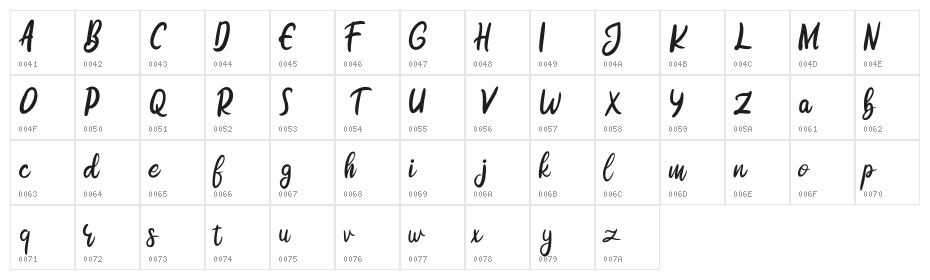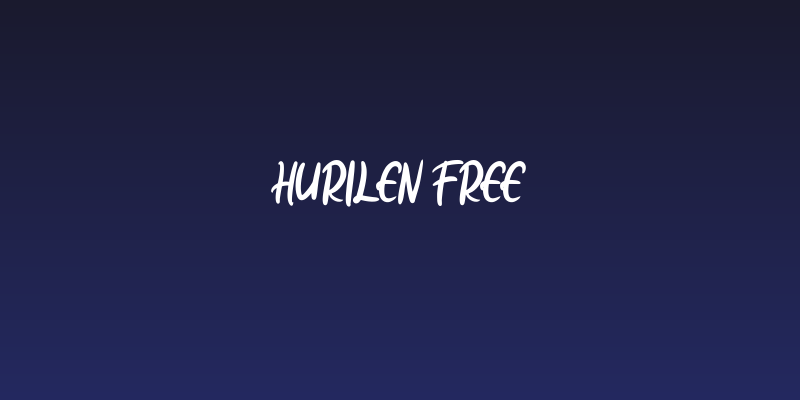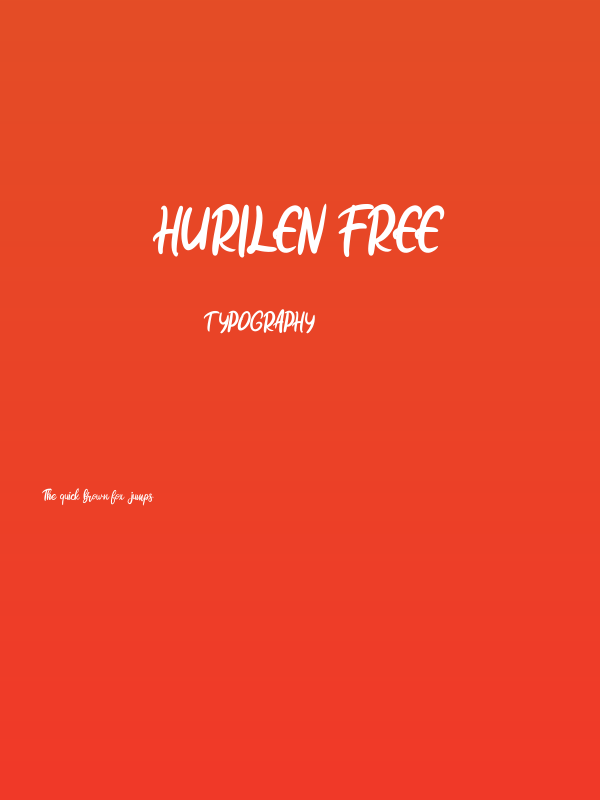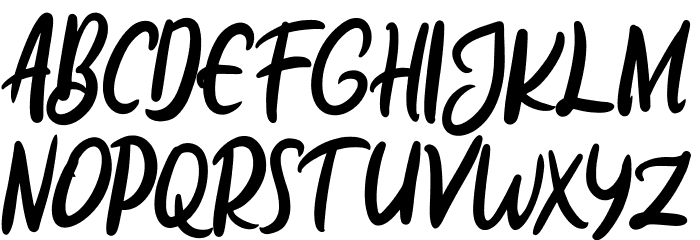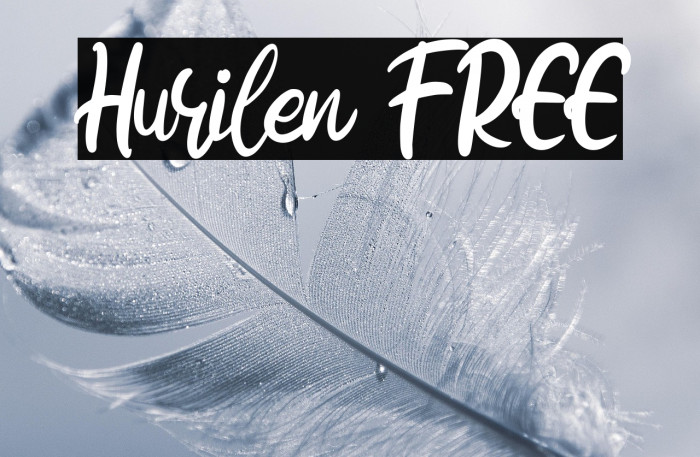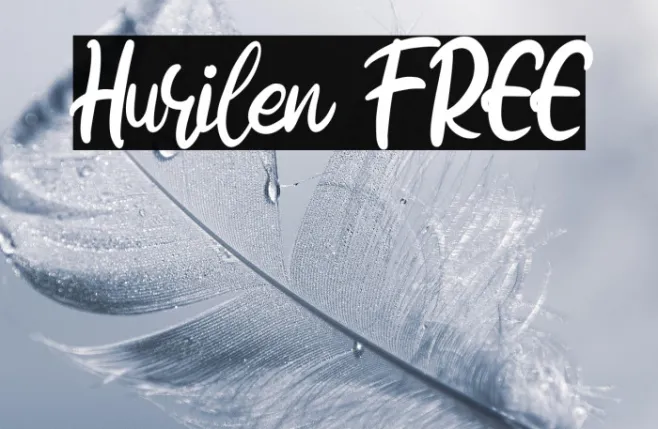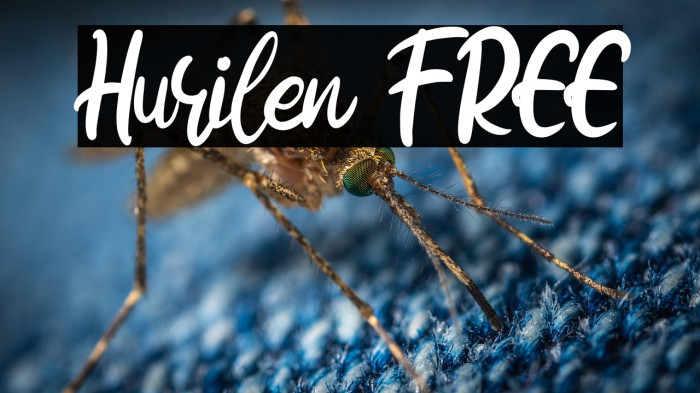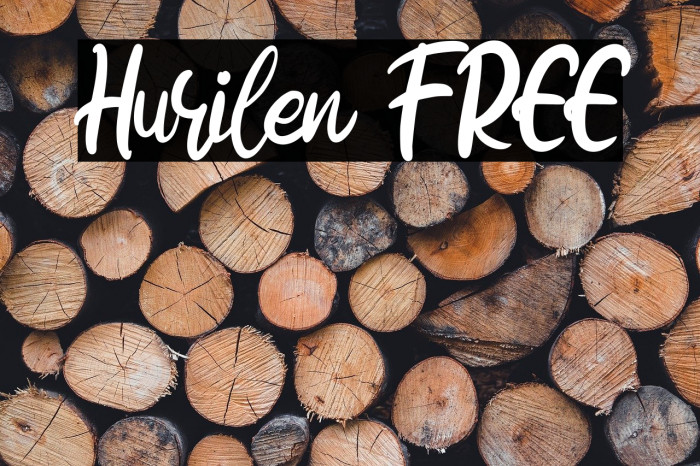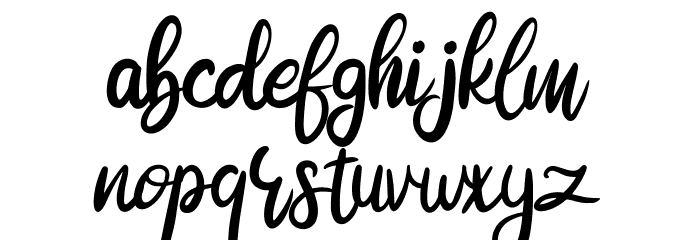
Hurilen FREE Font
Hurilen FREE Description
This font features a bold, flowing script style that exudes a sense of elegance and dynamism. The characters are interconnected, creating a seamless and fluid appearance. The strokes are thick and consistent, providing a strong visual impact. The uppercase letters are slightly taller than the lowercase, maintaining a harmonious balance. The font's playful yet sophisticated style makes it versatile for various design applications. Its handwritten quality adds a personal touch, making it suitable for creative projects that require a human element.